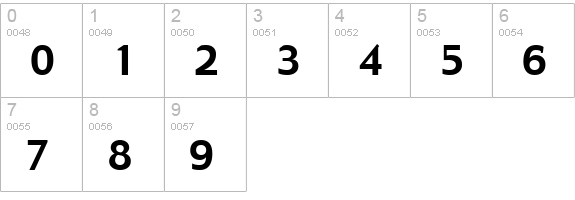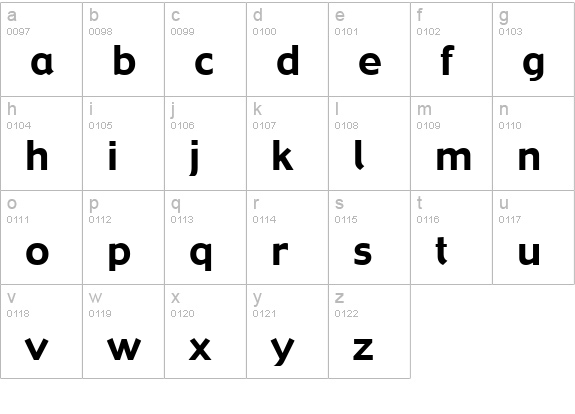
Gadget font is a modern and sleek typeface that is perfect for all your digital design needs. With its clean lines and geometric shapes, this font exudes a sense of technology and innovation. Whether you're creating a website, designing a logo, or crafting a poster, Gadget font will add a touch of sophistication to your project. One of the best things about Gadget font is that it is free. That's right, you can download this amazing font at no cost! With its high-quality design and wide range of characters, Gadget font offers incredible value for designers and creatives alike. Freely available to download at FontsMarket.com, Gadget font is easily accessible to anyone who wants to enhance their design work. Whether you're a professional designer or a hobbyist, this font is a must-have in your toolkit. Not only does Gadget font offer a stylish and contemporary look, but it also provides excellent readability. Each character is meticulously crafted to ensure legibility on various digital platforms, making it ideal for websites, apps, and other digital interfaces. The versatility of Gadget font is another reason to love it. It can be used for both headlines and body text, making it a versatile choice for all your design projects. Its bold and confident appearance will captivate your audience and leave a lasting impression. So why wait? Download Gadget font today and elevate your designs to a whole new level. With its modern aesthetic, high-quality design, and the fact that it is freely available at FontsMarket.com, Gadget font is truly a valuable asset for any designer. Don't miss out on this fantastic opportunity to enhance your creative work and make a bold statement.